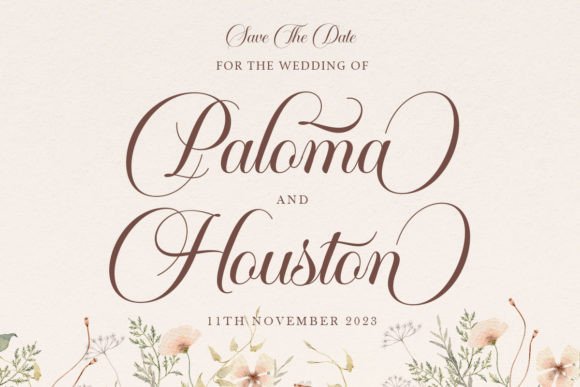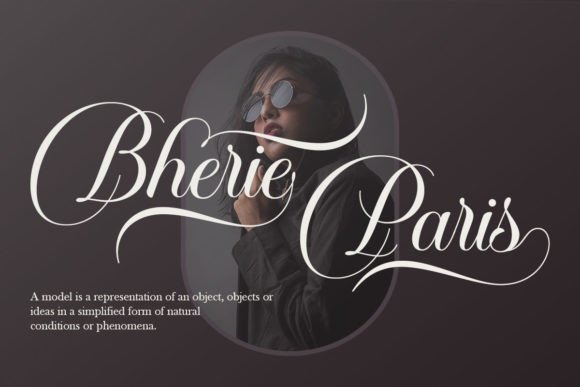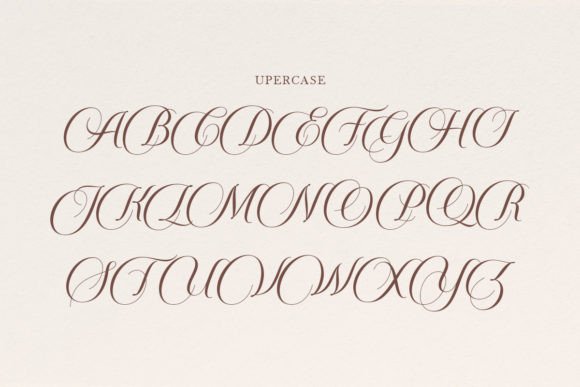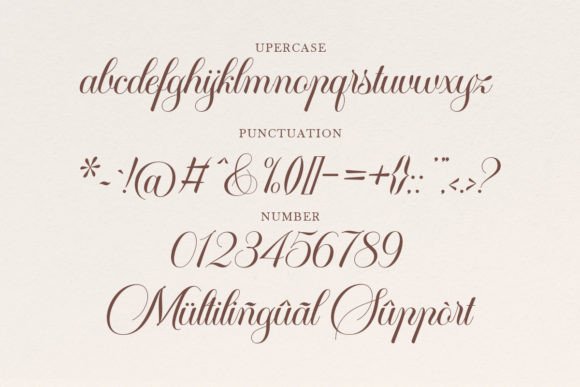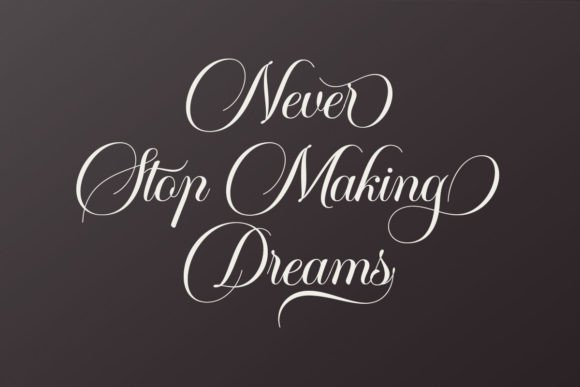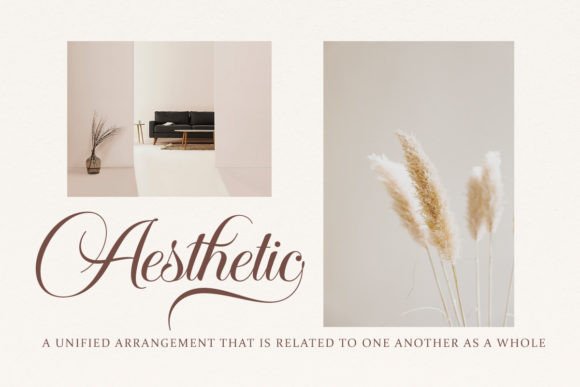
Discover the Elegance of Adamiya Font: Elevate Your Designs with a Personalized Touch
In the world of typography, fonts play a crucial role in conveying the tone and personality of a design. For crafters, designers, and DIY enthusiasts, finding the perfect font can make all the difference in creating visually stunning and effective designs. If you’re on the hunt for a unique and elegant handwritten font that adds a touch of sophistication to your projects, look no further than Adamiya Font.
What is Adamiya Font?
Adamiya is a beautiful, one-of-a-kind handwritten font that exudes elegance and refinement. Its distinctive style makes it an excellent choice for a wide range of design applications, from wedding invitations and thank you cards to greeting cards, logos, and more. With Adamiya, you can add a personalized touch to your designs, setting them apart from the ordinary and making them truly special.
Key Features of Adamiya Font
- Unique and Elegant Design: Adamiya boasts a distinctive, handcrafted look that lends a touch of sophistication to any design.
- Versatile: This font is perfect for various design projects, including wedding invitations, greeting cards, logos, and more.
- Personalized Style: With Adamiya, you can create designs that feel truly personal and bespoke.
- Easy to Read: Despite its elegant and cursive nature, Adamiya remains clear and easy to read, making it functional as well as beautiful.
Uses of Adamiya Font
Adamiya’s versatility is one of its standout features. Here are some of the many ways you can use this stunning font:
- Wedding Invitations: Add a touch of romance and elegance to your wedding invitations, save-the-dates, and thank you cards.
- Greeting Cards: Whether it’s a birthday, anniversary, or holiday card, Adamiya brings a warm, personal feel to your greetings.
- Logos and Branding: For businesses looking for a logo or brand identity that feels personal and unique, Adamiya can be a great fit.
- DIY Projects: Crafters and DIY enthusiasts will love using Adamiya for their handmade projects, such as scrapbooking, journaling, and more.
Tips for Using Adamiya Font Effectively
To make the most of Adamiya, consider the following tips:
- Pair with Complementary Fonts: For maximum impact, pair Adamiya with clean, sans-serif fonts to create visual contrast.
- Experiment with Colors: While Adamiya looks beautiful in traditional black and white, don’t be afraid to experiment with colors that match your design’s theme.
- Pay Attention to Spacing: Handwritten fonts like Adamiya can sometimes get crowded. Make sure to adjust the spacing between letters and lines for optimal readability.
Adamiya Font is a game-changer for designers, crafters, and DIY enthusiasts looking to add a touch of elegance and personality to their projects. Its unique, handwritten design and versatile nature make it perfect for a wide range of applications, from wedding invitations to logos. By incorporating Adamiya into your designs, you’ll be able to create stunning, one-of-a-kind pieces that capture the essence of your message. So why wait? Discover the beauty of Adamiya Font today and elevate your designs to new heights.